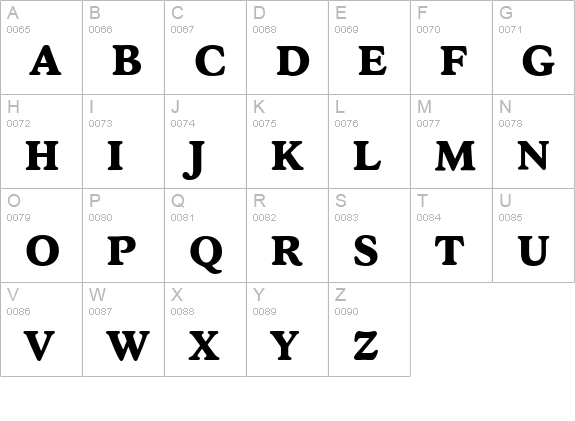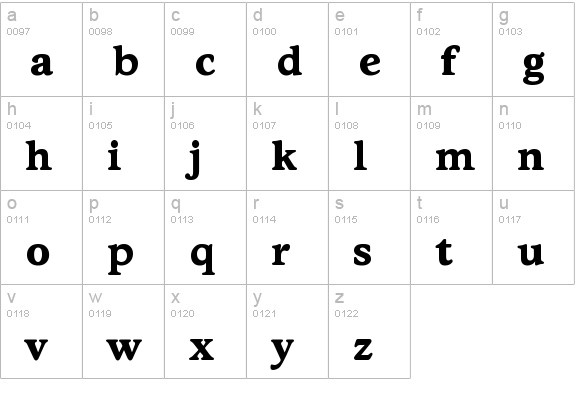
StratfordSerial-Xbold-Regular Font Details
StratfordSerial-Xbold-Regular is the standard, neutral variant in the StratfordSerial typeface family \xE2\x80\x94 well suited to general body text, paragraphs, and standard typographic work.
StratfordSerial-Xbold-Regular is a versatile and modern font that exudes a sense of strength and elegance. With its bold and striking appearance, this typeface is perfect for making a statement in headlines, logos, and other design projects. The clean lines and sharp edges of the letters give it a contemporary and sophisticated look that is sure to capture attention. What sets StratfordSerial-Xbold-Regular apart is not just its aesthetics, but also its accessibility. This font is available for free download at FontsMarket.com, making it a valuable addition to any designer's toolkit. Whether you're working on a branding project, advertising campaign, or any other creative endeavor, StratfordSerial-Xbold-Regular offers the perfect blend of style and functionality. Download StratfordSerial-Xbold-Regular today and elevate your designs with this sleek and professional font that is both visually striking and easy to use.